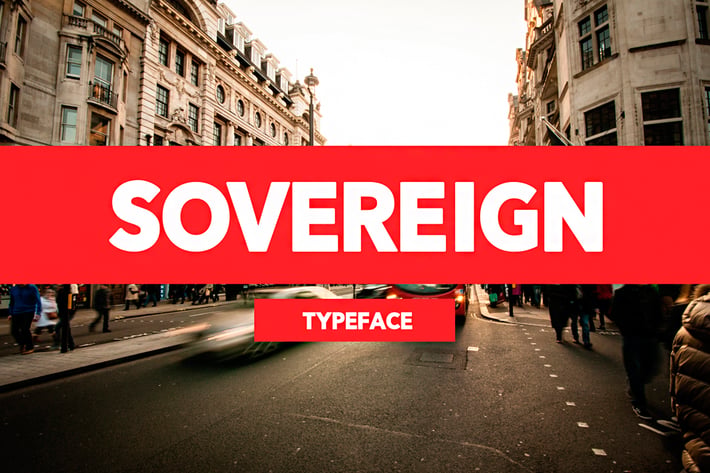
Sovereign Typeface
I'm really proud to present the Sovereign Typeface
This is an amazing typography for Bold and Modern Ideas, Creative Thinking and Urban Lifestyle. You will love it!
Create Amazing Branding ideas, logos, labels, t-shirts, brochures, and more!